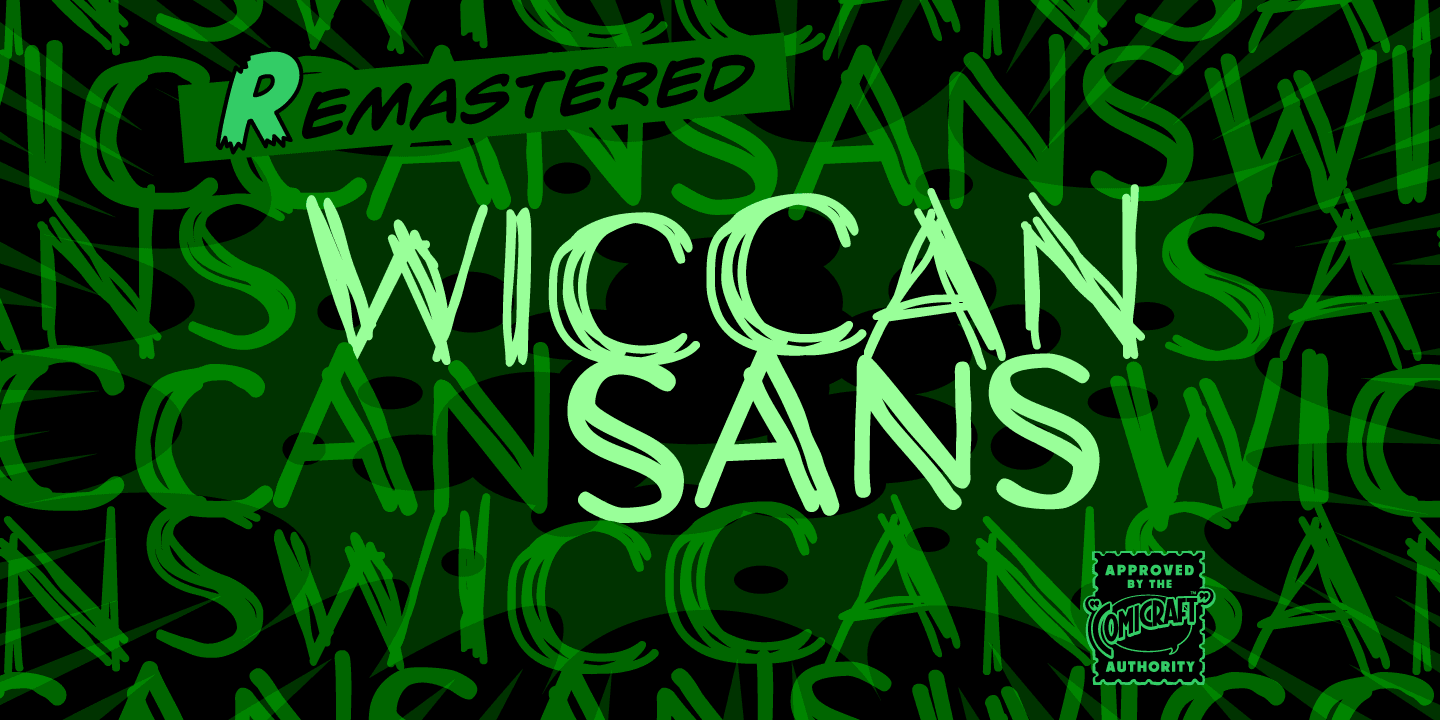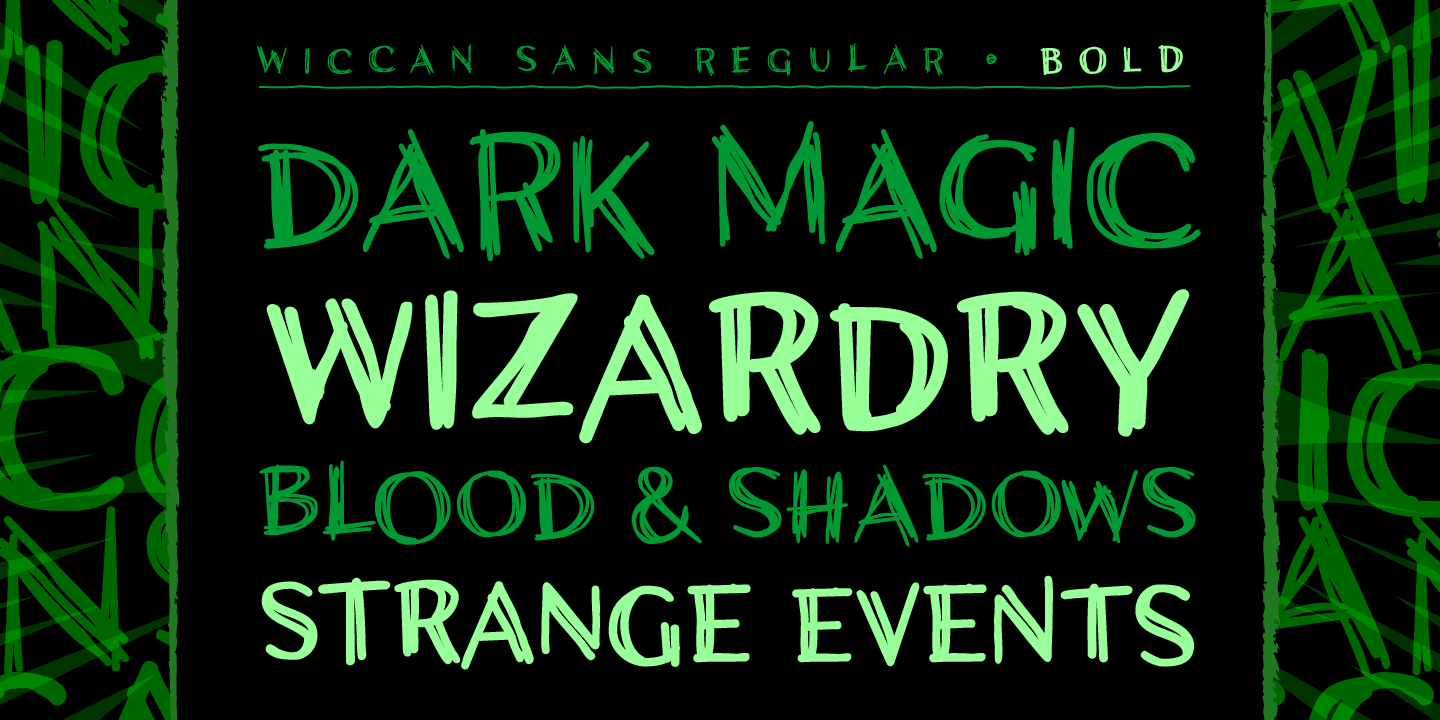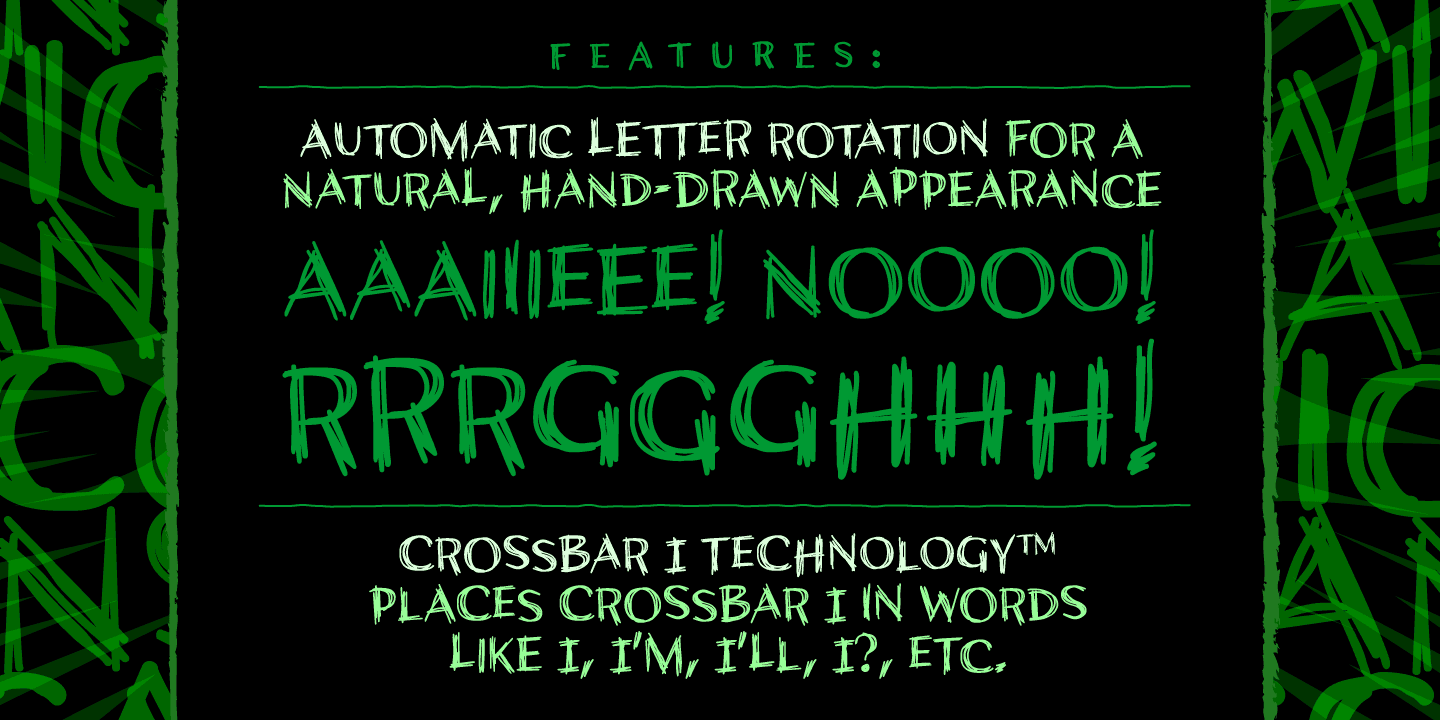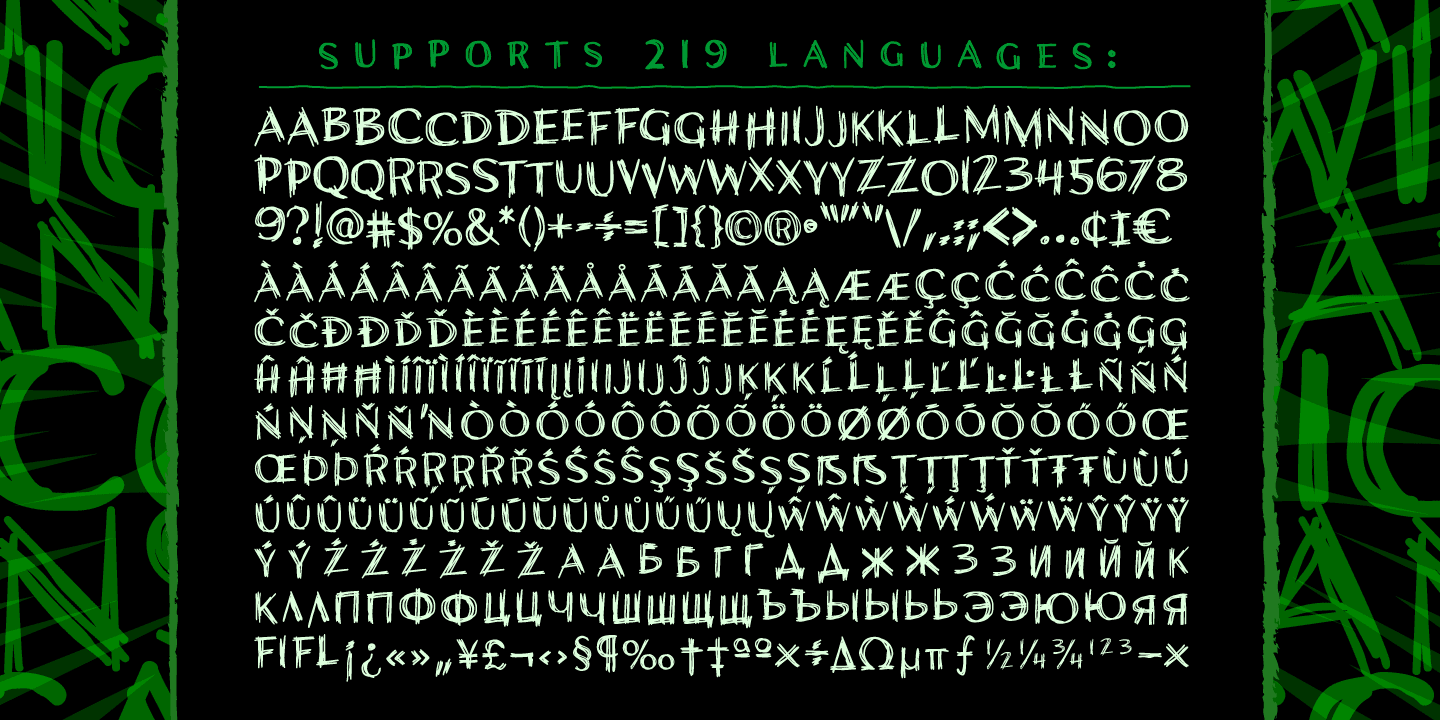
Wiccan Sans
Font Family by Comicraft Fonts
In 1996, three student letterers went into the forest looking for the mysterious fonts used to letter Spawn: Blood & Shadows. They never returned. A year later, their fonts were found.
Remastered Wiccan Sans includes new Western & Central European and Cyrillic characters, automatically cycling alternates and Crossbar I Technology™